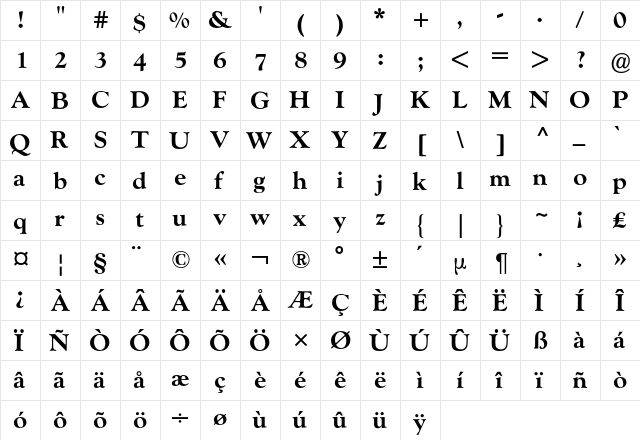
Goudy BQ Regular
Design Context for Goudy BQ Typeface
Goudy BQ offers clean, dependable letterforms without strong stylistic allegiance, making it a practical choice for designers who need flexibility.
Pro Tip: Use Goudy BQ in both headline and body roles to test its range before committing to a single application.